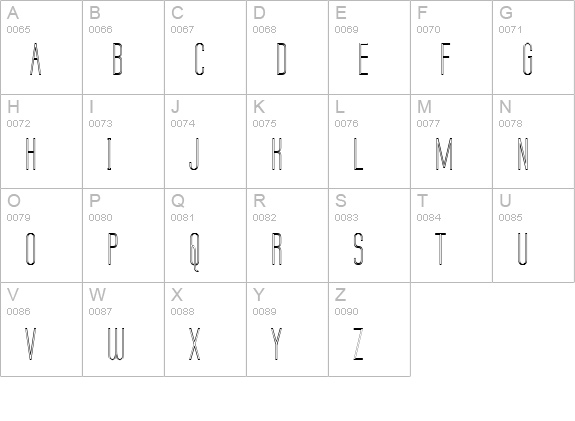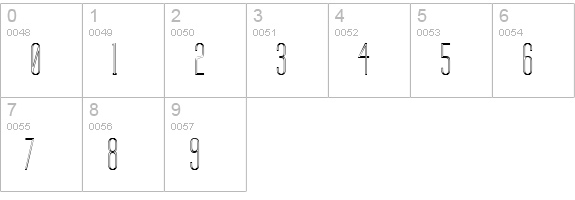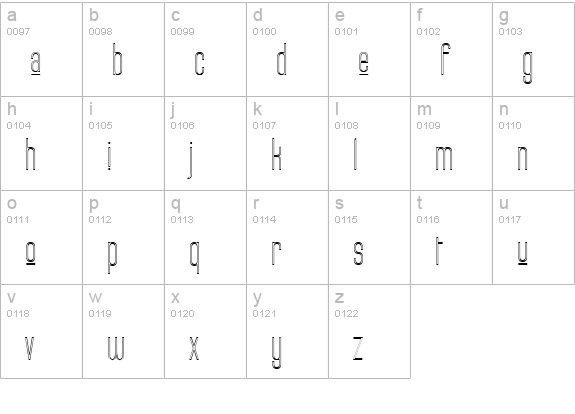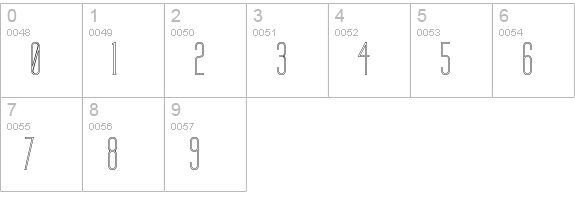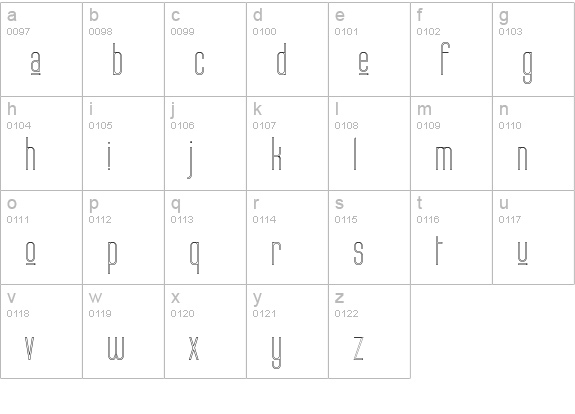
Labtop Upper Outline font is a modern and stylish typeface that exudes sophistication and elegance. Its sleek and clean lines make it perfect for a wide range of design projects, from branding to packaging to digital displays. The outline style adds a touch of uniqueness and creativity to any text, making it stand out from the crowd. The Labtop Upper Outline font is not only visually appealing but also highly versatile, suitable for both headlines and body text. Its bold and eye-catching appearance ensures that your message will be conveyed with impact and style. Best of all, Labtop Upper Outline font is available for free download at FontsMarket.com. This means that you can access this high-quality font without any cost, making it a valuable addition to your font collection. Whether you are a designer, marketer, or simply someone looking to enhance your projects with a touch of elegance, Labtop Upper Outline font is the perfect choice. Download it today and elevate your designs to the next level.